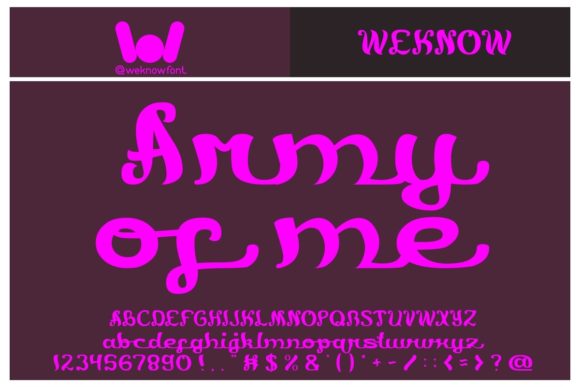
Discover the Charm of Army of Me Font: Elevate Your Designs with a Chic and Whimsical Handwritten Style
In the world of typography, fonts play a crucial role in conveying the tone and personality of a design. For designers and crafters looking to add a touch of whimsy and charm to their creations, the Army of Me font is an excellent choice. This beautiful, handwritten font is perfect for a wide range of projects, from branding and advertising to packaging and digital media.
What Makes Army of Me Font So Special?
Army of Me is a chic and whimsical handwritten font that boasts a unique, personal touch. Its elegant and flowing script is sure to capture the attention of your audience and leave a lasting impression. The font’s versatility makes it an excellent addition to any font library, allowing you to use it for various design projects, regardless of the topic or theme.
Key Features of Army of Me Font
- Handwritten style: Army of Me font features a beautiful, handwritten script that adds a personal touch to your designs.
- Whimsical and elegant: The font’s flowing curves and lines create a whimsical and elegant look that’s perfect for a wide range of design projects.
- Versatile: Army of Me font is suitable for various design projects, including branding, advertising, packaging, and digital media.
- Easy to read: Despite its whimsical nature, the font is easy to read, making it perfect for body text and headlines.
Use Cases for Army of Me Font
Army of Me font is an excellent choice for a wide range of design projects, including:
- Branding and logos: Create a unique and memorable brand identity with Army of Me font.
- Advertising and marketing materials: Use the font to create eye-catching ads, brochures, and flyers that capture your audience’s attention.
- Packaging design: Add a touch of whimsy and charm to your product packaging with Army of Me font.
- Digital media: Use the font to create engaging social media graphics, blog posts, and website content.
- Crafting and DIY projects: Army of Me font is perfect for crafters and DIY enthusiasts looking to add a personal touch to their projects.
Tips for Using Army of Me Font Effectively
To get the most out of Army of Me font, follow these tips:
- Use it sparingly: Army of Me font is best used sparingly to create a focal point in your design.
- Pair it with complementary fonts: Combine Army of Me font with complementary fonts to create a unique and visually appealing typography.
- Experiment with colors and textures: Add depth and interest to your design by experimenting with different colors and textures.
Army of Me font is a beautiful, handwritten font that can elevate your designs and add a touch of whimsy and charm. Its versatility, elegance, and ease of use make it an excellent addition to any font library. Whether you’re a designer, crafter, or DIY enthusiast, Army of Me font is sure to become a favorite in your collection.